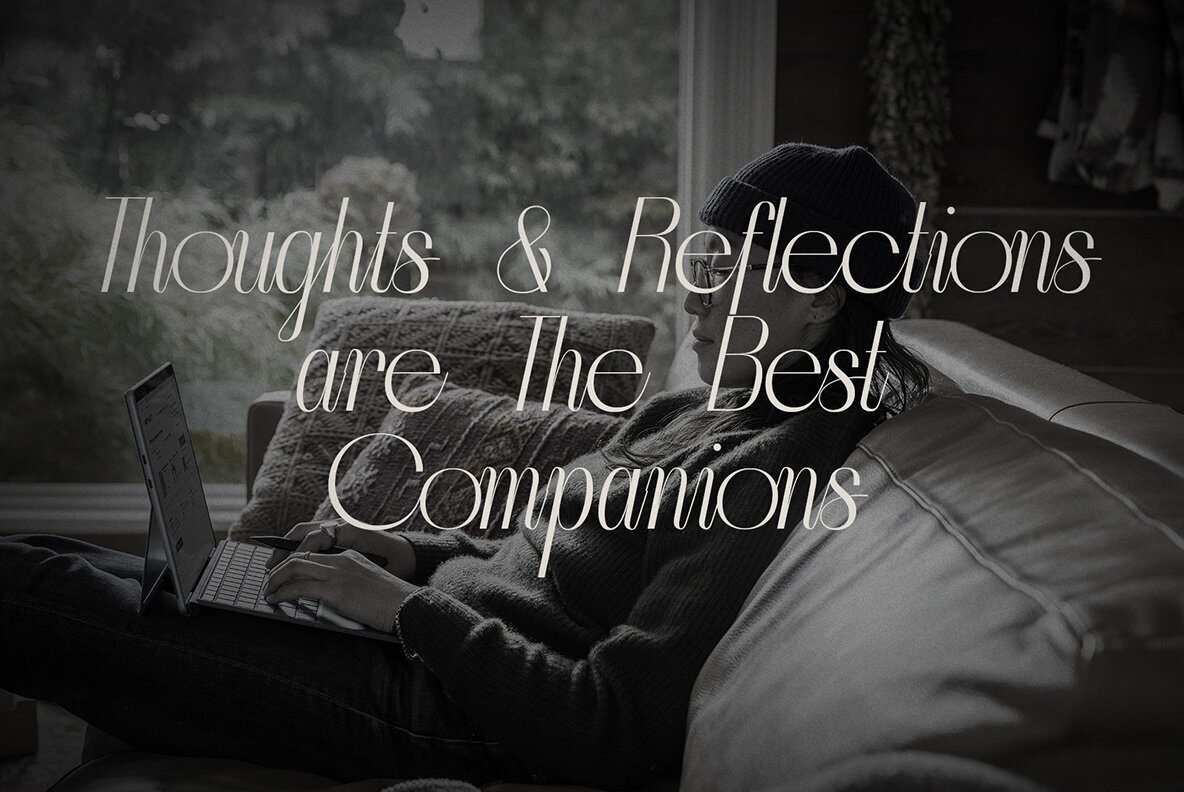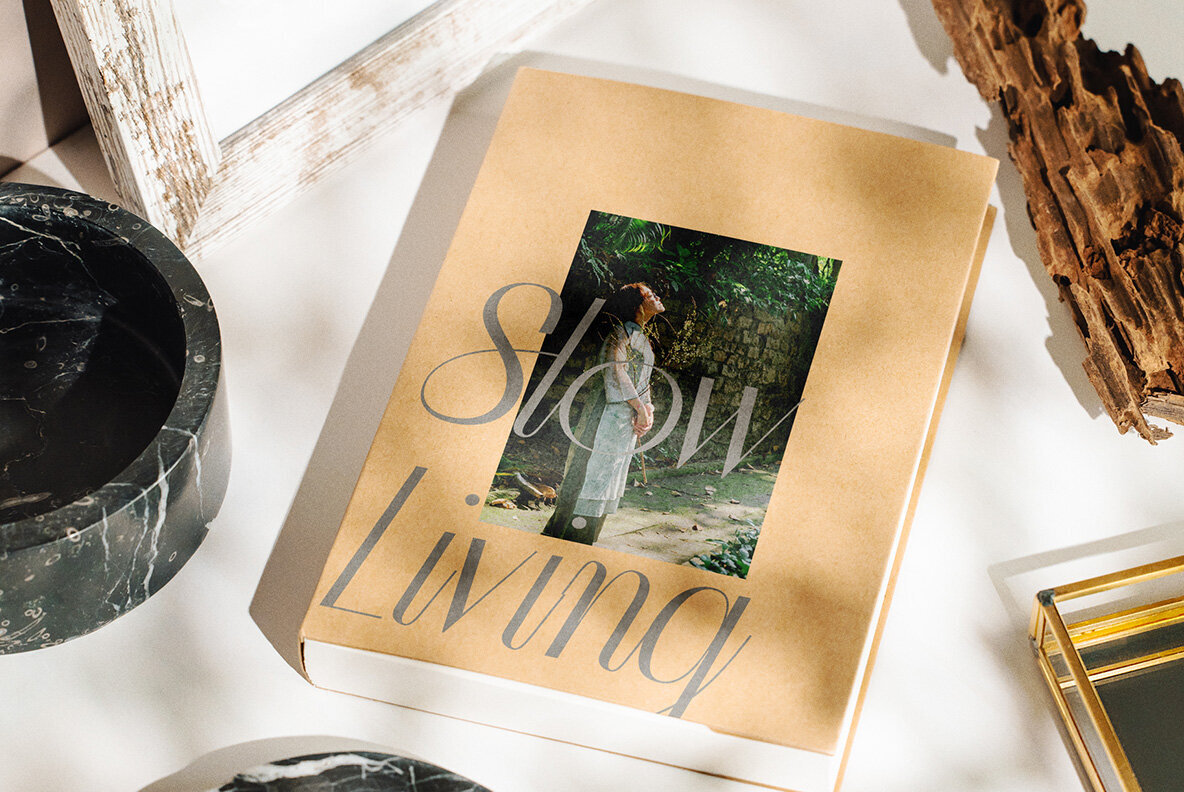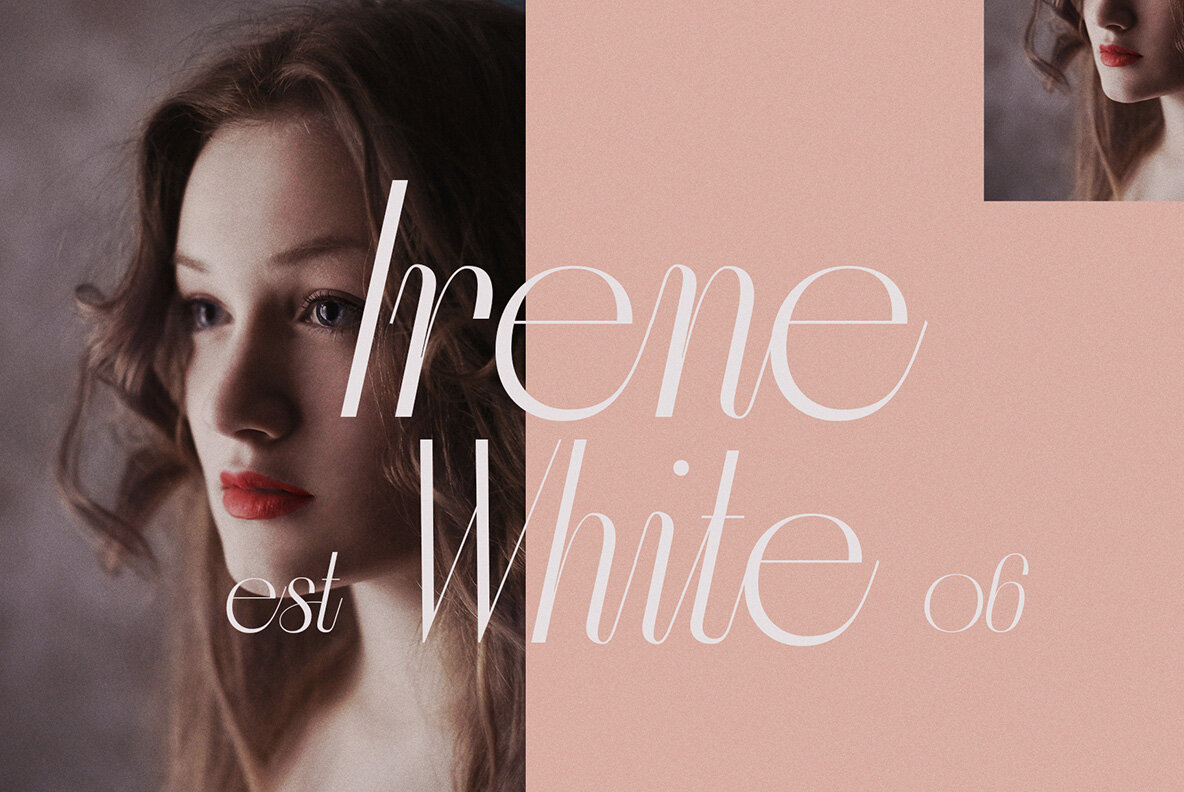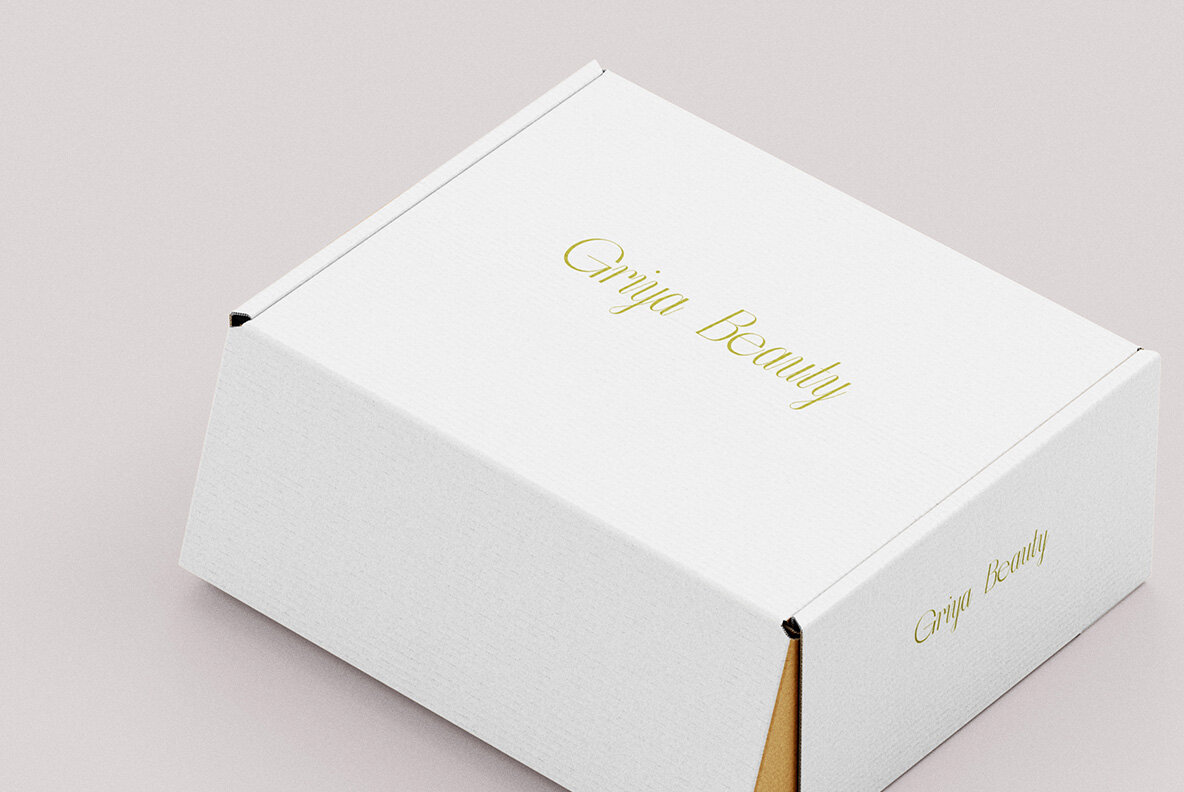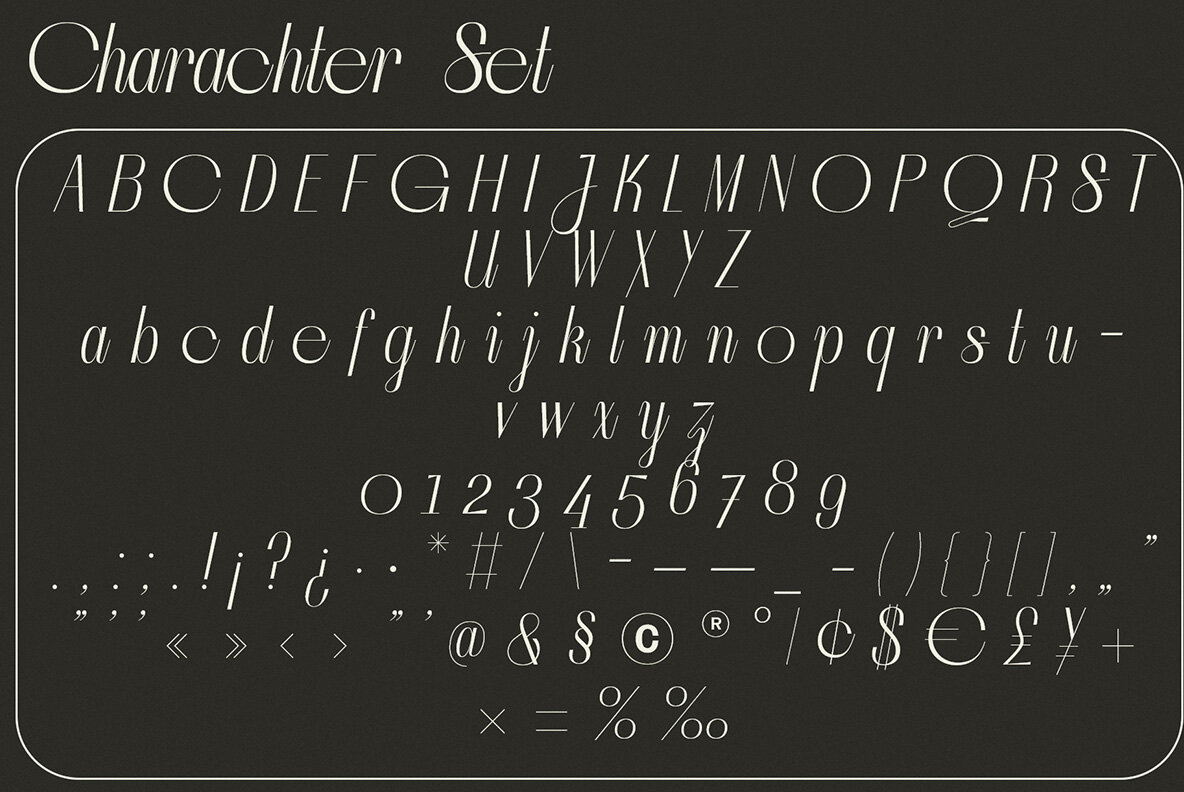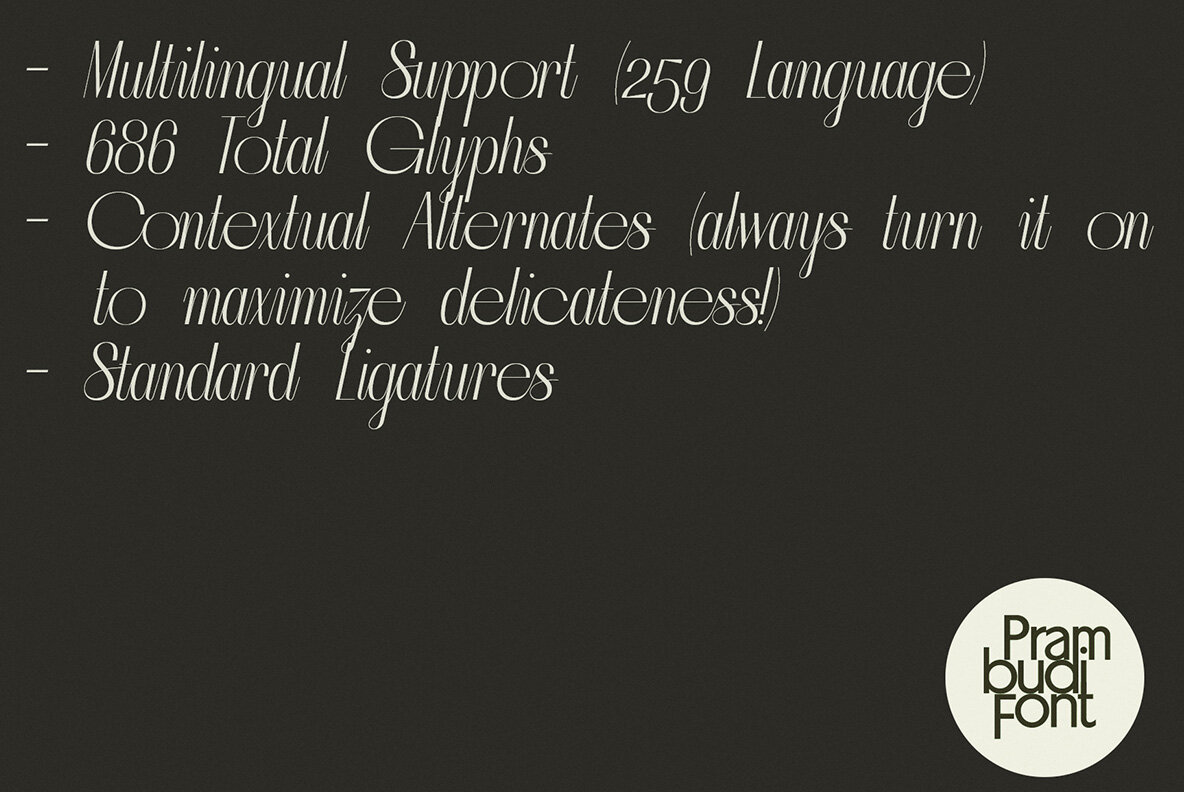
Tanzif Font
Tanzif Regular
Introducing Tanzif, a sleek and modern script font that adds a touch of sophistication to any design. With its smooth lines and stylish appearance, Tanzif is perfect for brands looking to make a statement. Whether you're designing packaging, fashion materials, or branding, Tanzif brings elegance and style to your project. Try Tanzif today and see how it can elevate your creative work effortlessly. Tanzif is a new way of singing script! This version (2.0) had: 686 Glyphs total Stylistic Sets Lligatures Ordinals Thousand contextual alternates 259 Language Support Oldstyle figures as default